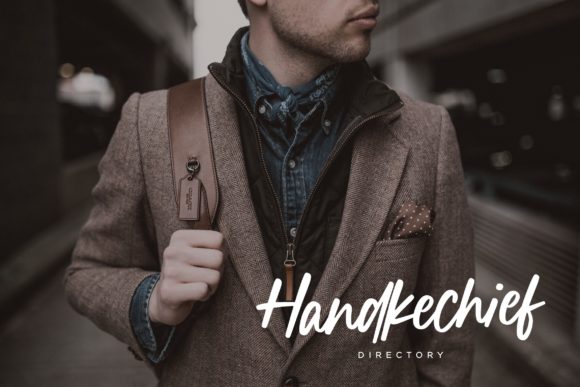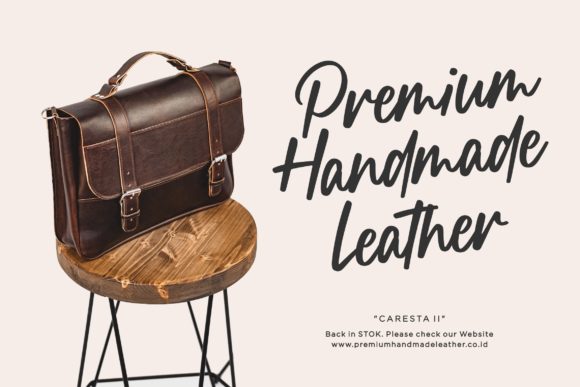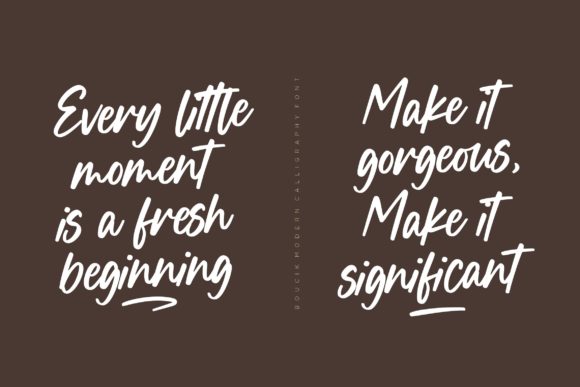
Introduction to Boucik Font
Boucik is a relaxed, modern and adaptable script font.
Why Choose Boucik Font?
Boucik Font offers exceptional quality and versatility, making it a valuable addition to your design toolkit. Whether you’re creating for personal projects or commercial use, Boucik Font delivers professional results.